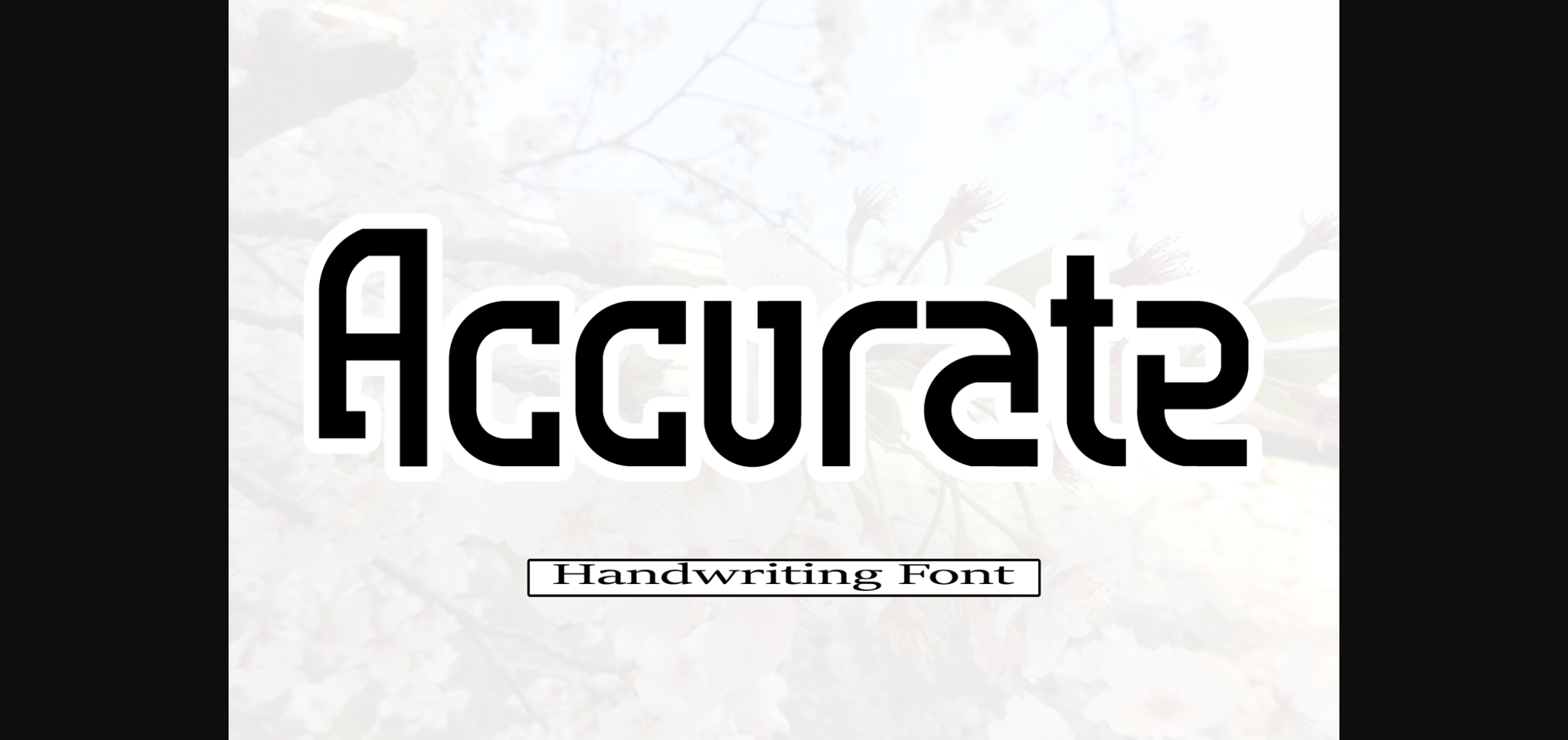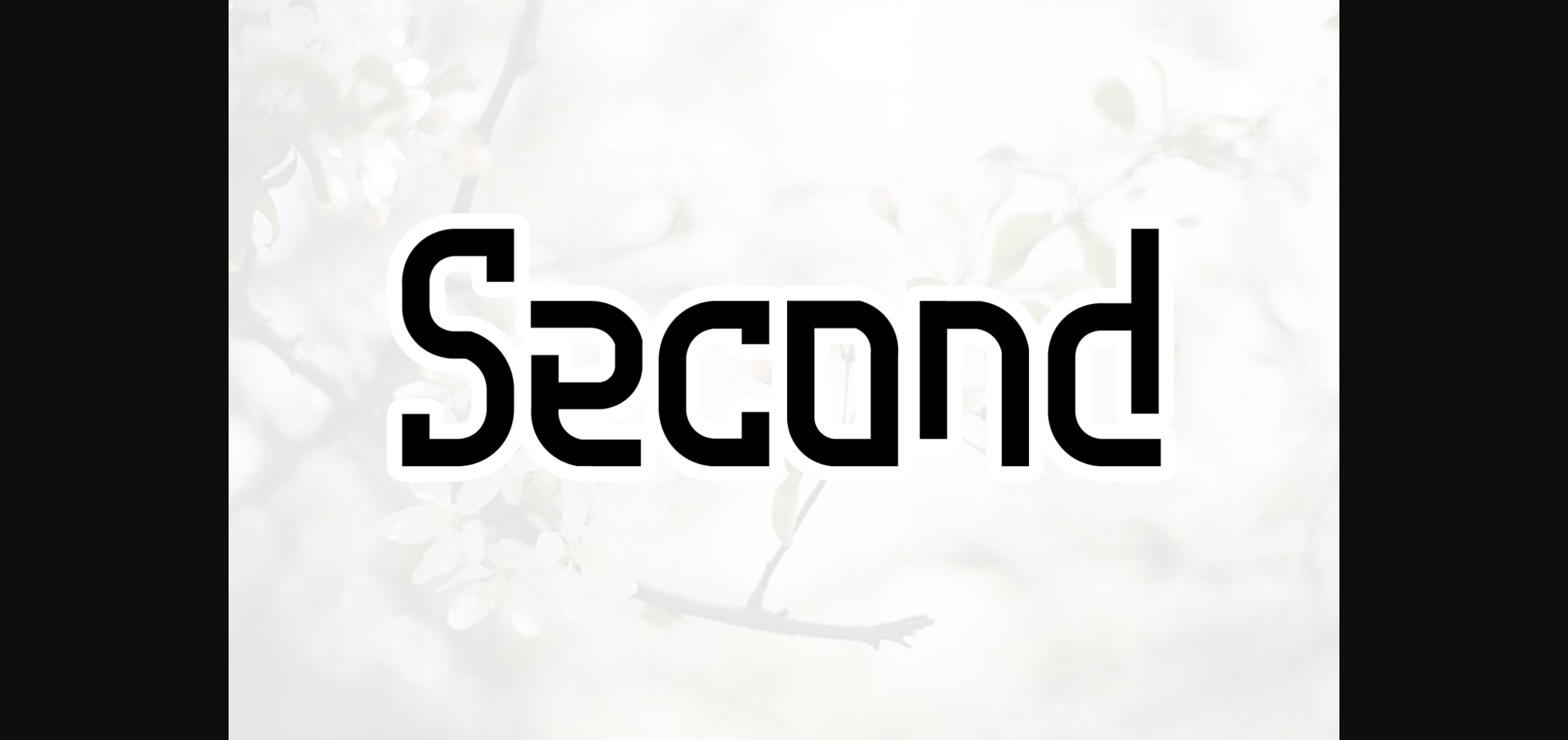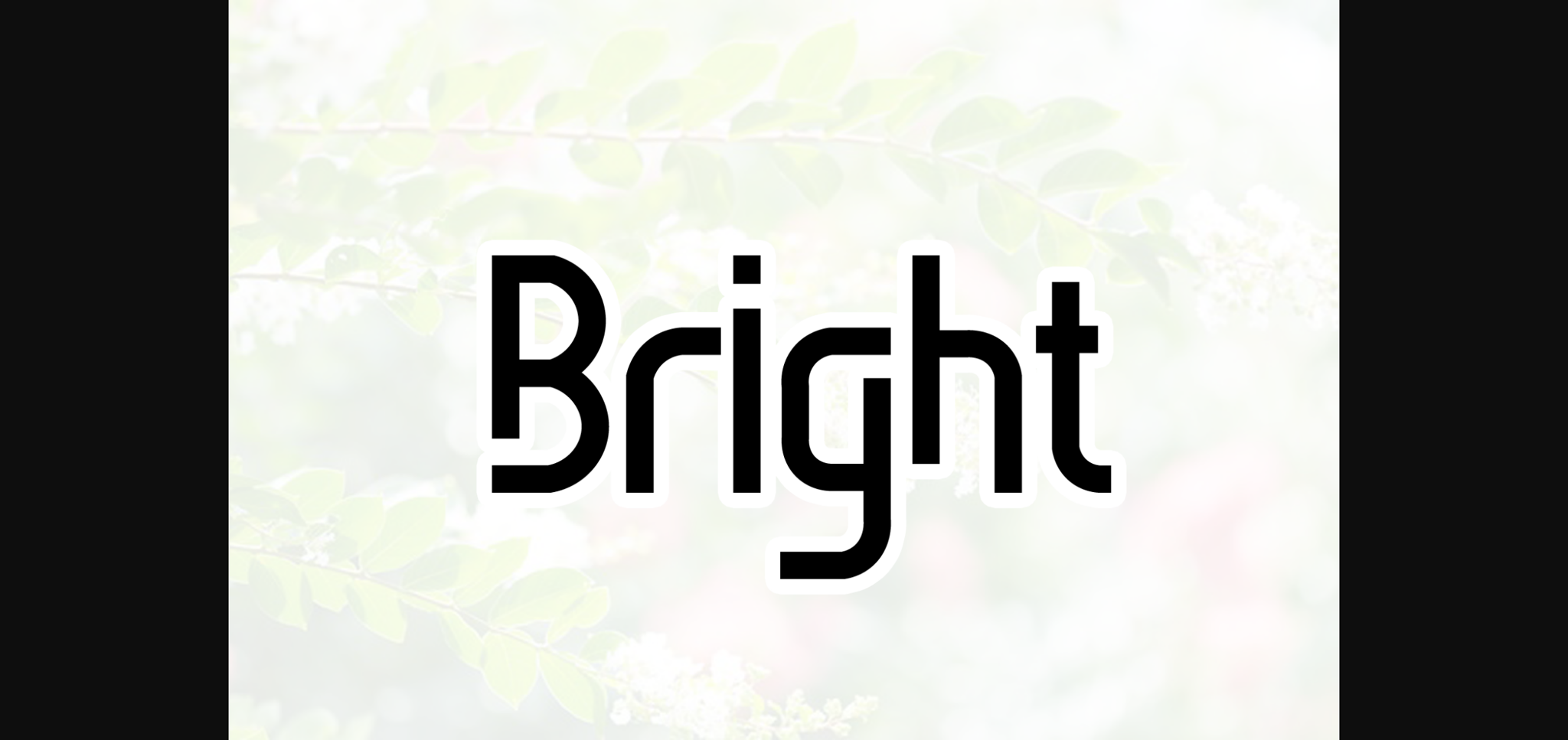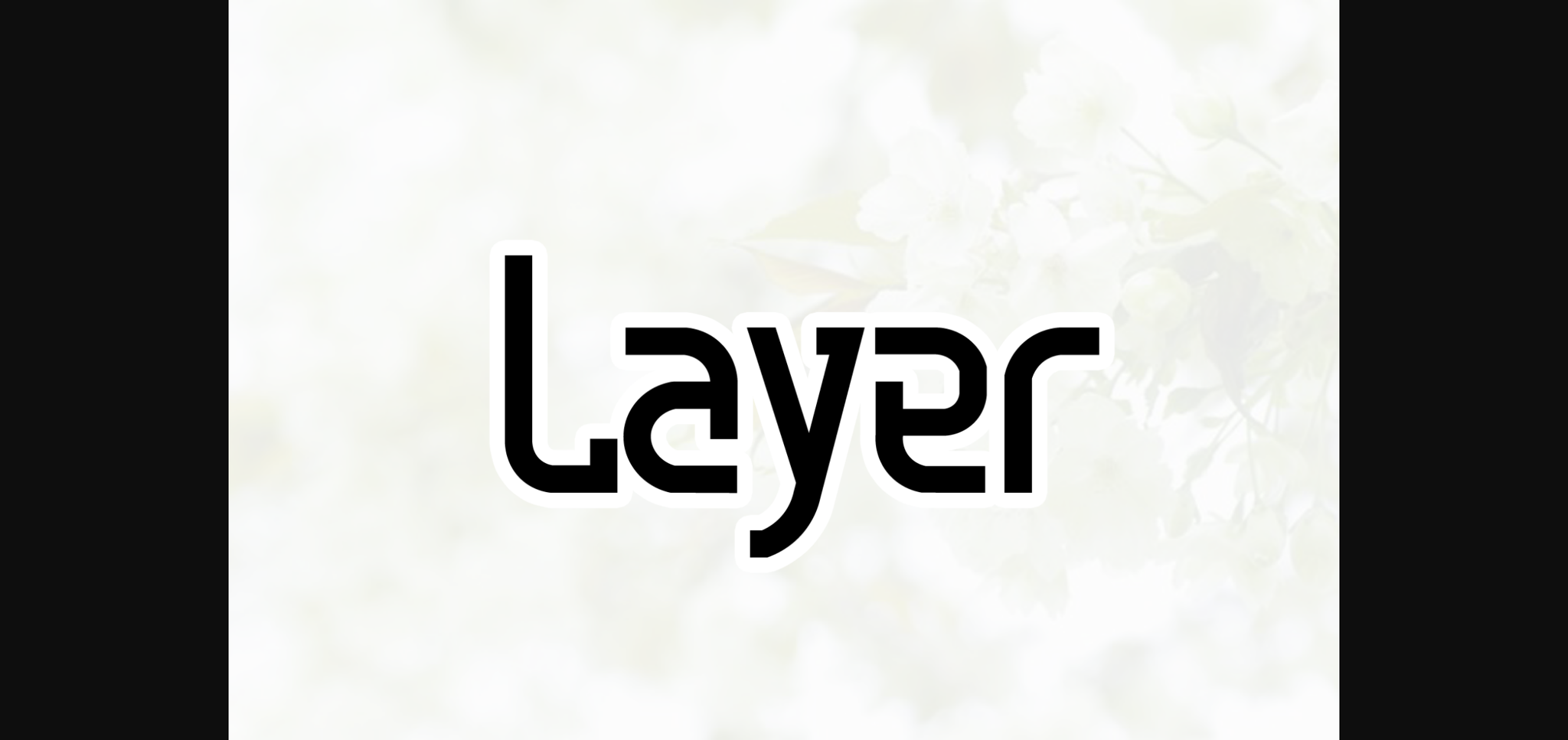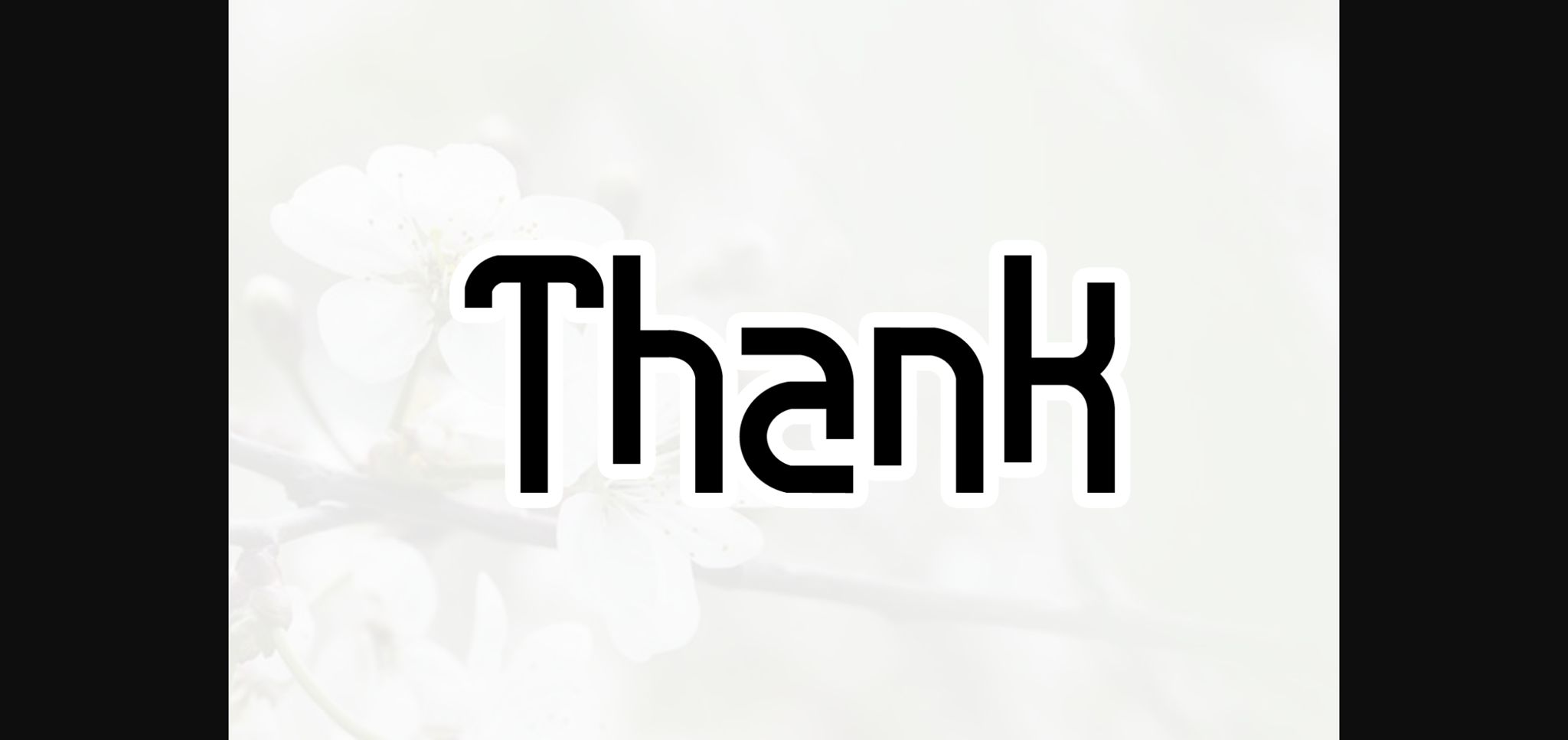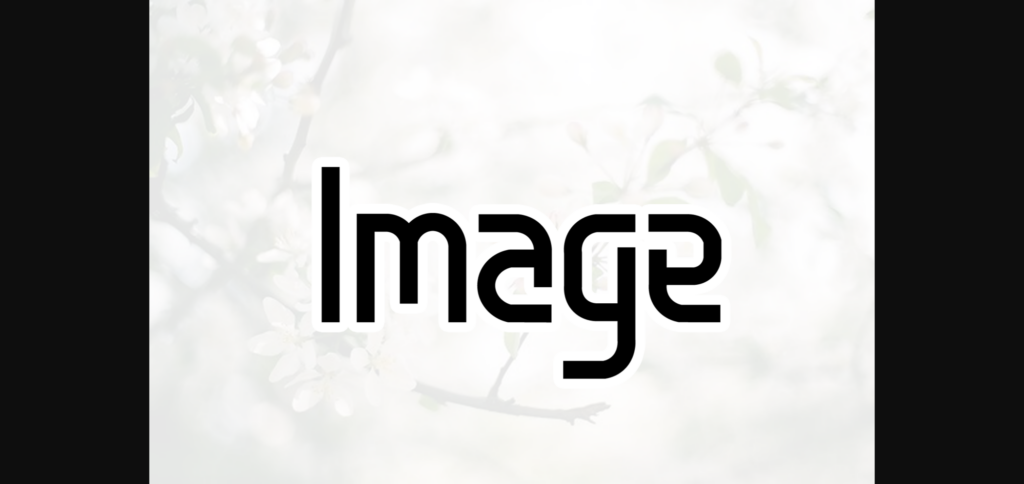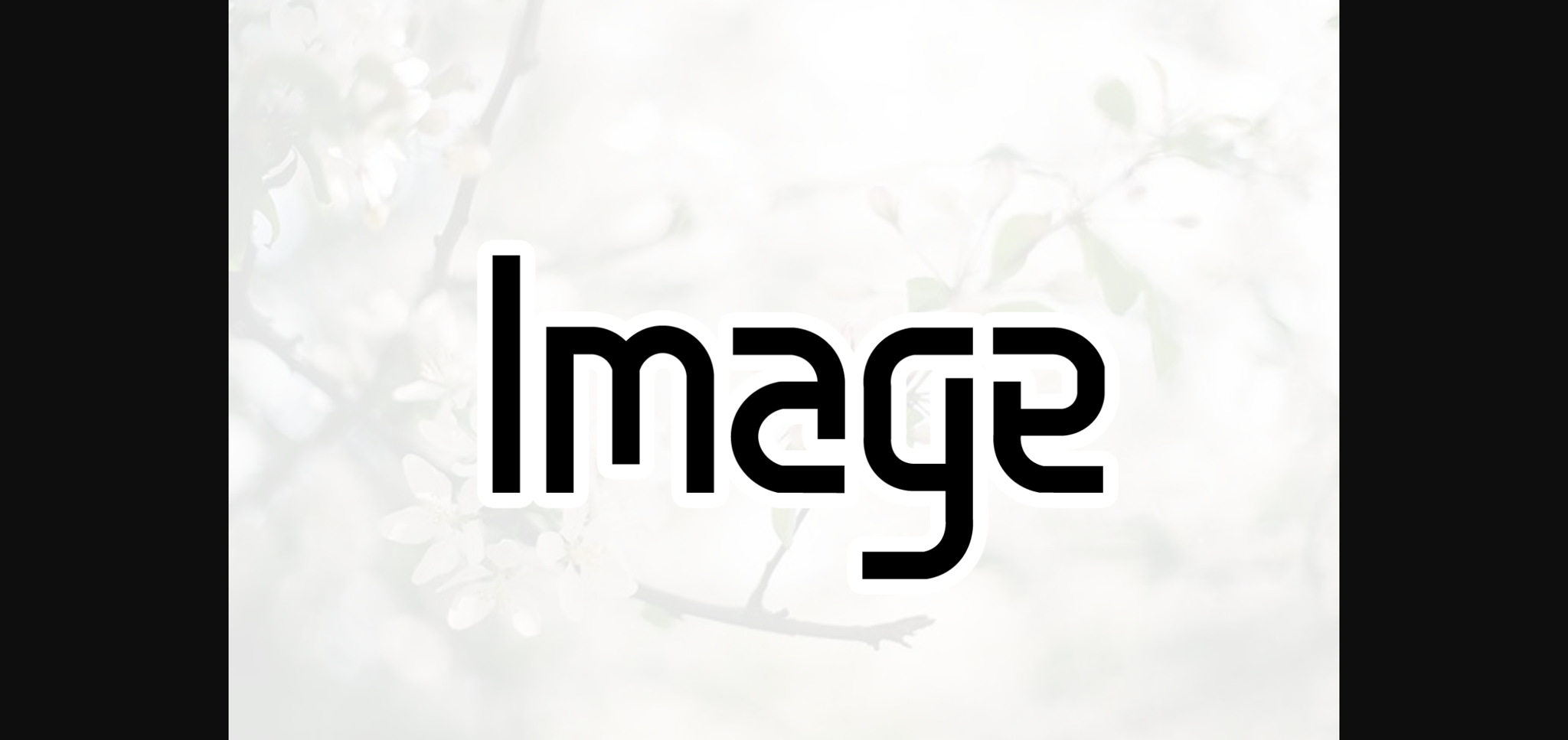
HomeSans Serif FontsAccurate Font Sans Serif Fonts Accurate Font FacebookXPinterestWhatsApp 1 of 8 ... Accurate Font Poster 2... Accurate Font Poster 3... Accurate Font Poster 4... Accurate Font Poster 5... Accurate Font Poster 6... Accurate Font Poster 7... Accurate Font Poster 8... About Accurate Font Accurate is a stylish and very elegant handwritten font. It looks amazing on wedding invitations, thank you cards, quotes, greeting cards, logos, business cards and any other design that calls for a handwritten touch. DOWNLOAD NOW People also explored Winter Font Nature Violces Font Alaycia Font Surfaces Font Honeymoon Font Sang Bintang – Handwritten Font Congestion Font Stone Soul Font Chancery Stars Font 285 0 TagsAccurate Font Previous articleRhodachild FontNext articleLincoln Font LEAVE A REPLY Cancel reply Comment: Please enter your comment! Name:* Please enter your name here Email:* You have entered an incorrect email address! Please enter your email address here Website: Save my name, email, and website in this browser for the next time I comment. Personal Use Free Anjhay Personal Use Free Read more about this font Quentin Personal Use Free Read more about this font Time for Presents Personal Use Free Read more about this font Bestlife Personal Use Free Read more about this font BLOG 5 Fonts That Will Dominate Design Trends in 2026 5 Fonts for 2026 That Will Dominate Design Trends Typography plays a critical role in visual communication, and as we look ahead to 2026, it’s... Top 7 Google Fonts Alternatives for Faster and Privacy-Friendly Web Design (2025) Free Fonts Risk: Why Free Fonts Can Be Dangerous for Designers Where to Buy American Fonts Online in 2024